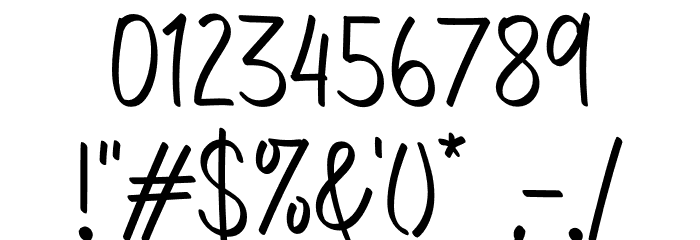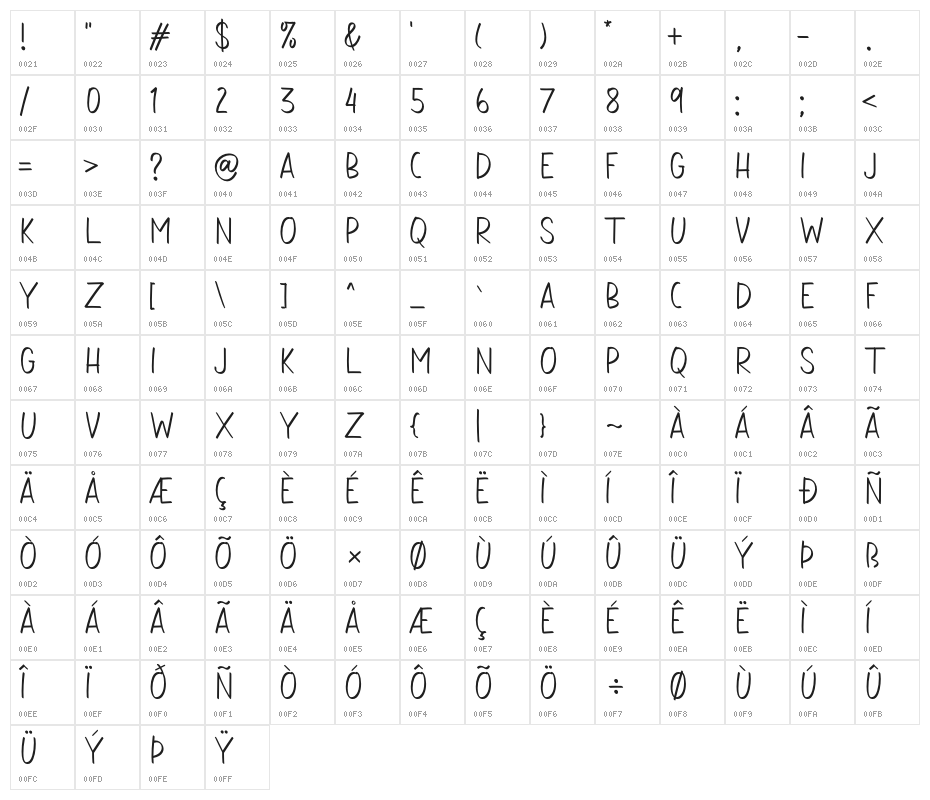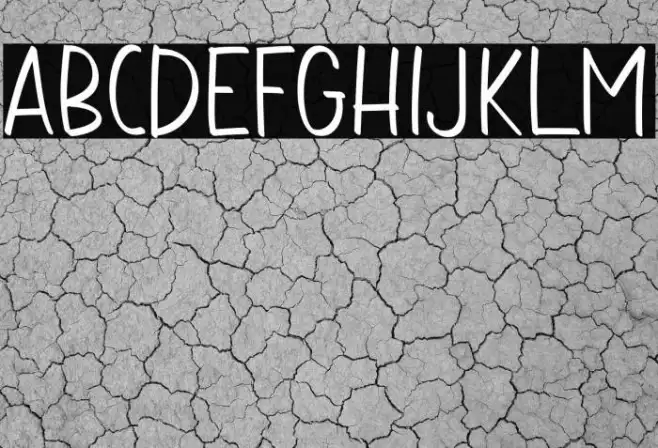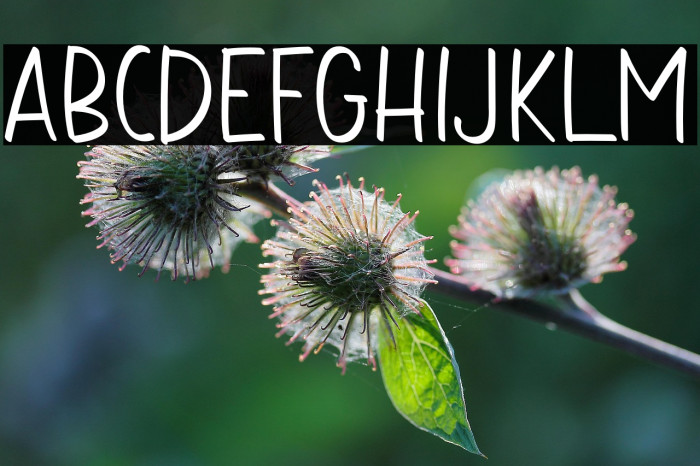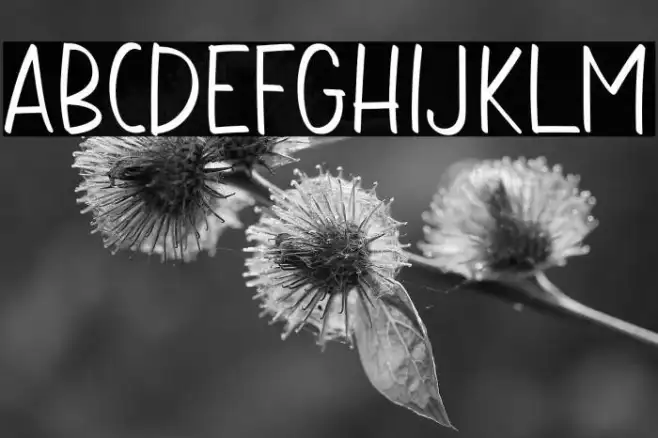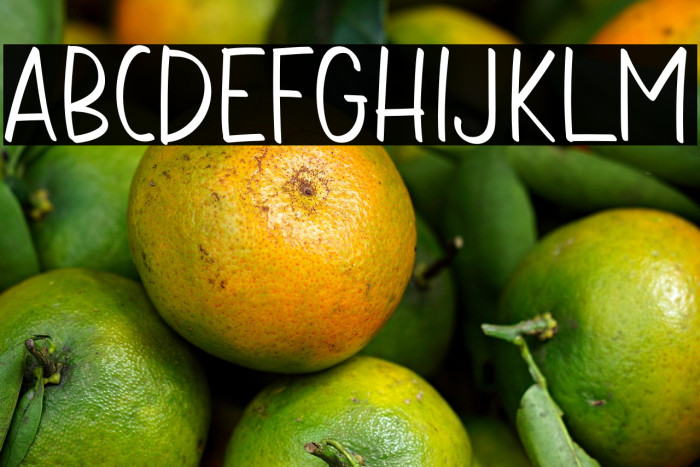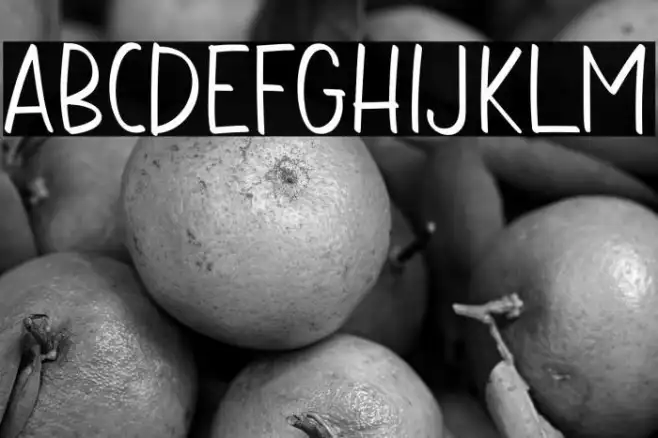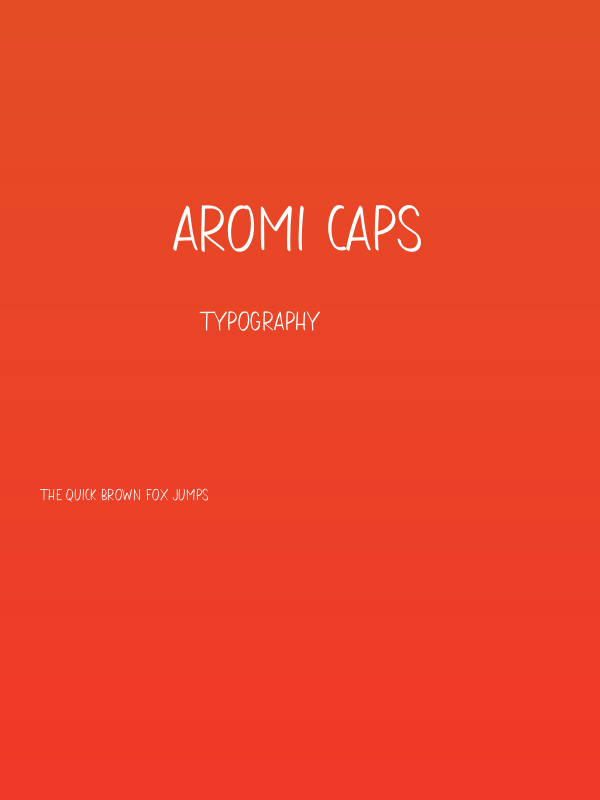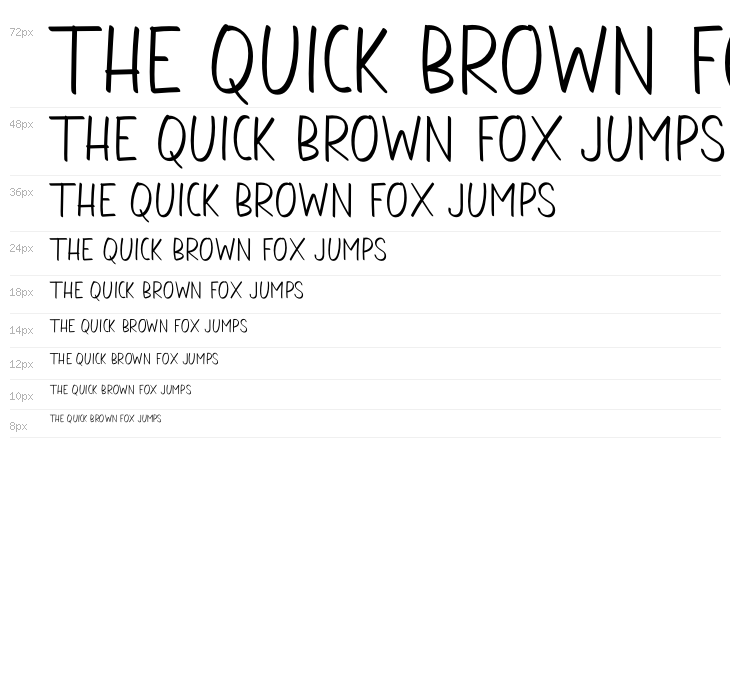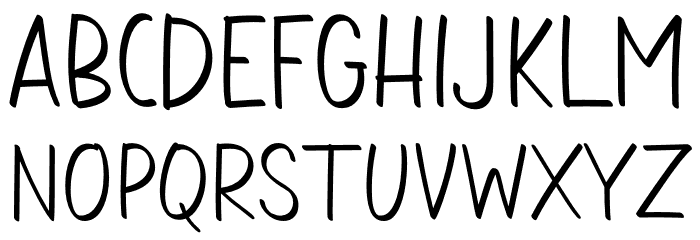
Aromi Caps Font
Aromi Caps Description
This font features a playful and casual handwritten style, characterized by its tall, narrow letters and slightly uneven strokes that give it a personal touch. The uppercase and lowercase letters maintain a consistent height, while the numerals and special characters blend seamlessly into the overall design. The strokes are smooth and slightly curved, adding to the font's approachable and friendly appearance. Its informal nature makes it suitable for projects that require a human touch, such as personal invitations, greeting cards, or creative branding. The font's simplicity and clarity ensure readability, making it versatile for various design needs.
| Proposed Projects | Ideal for personal invitations, greeting cards, creative branding, and informal communication. |